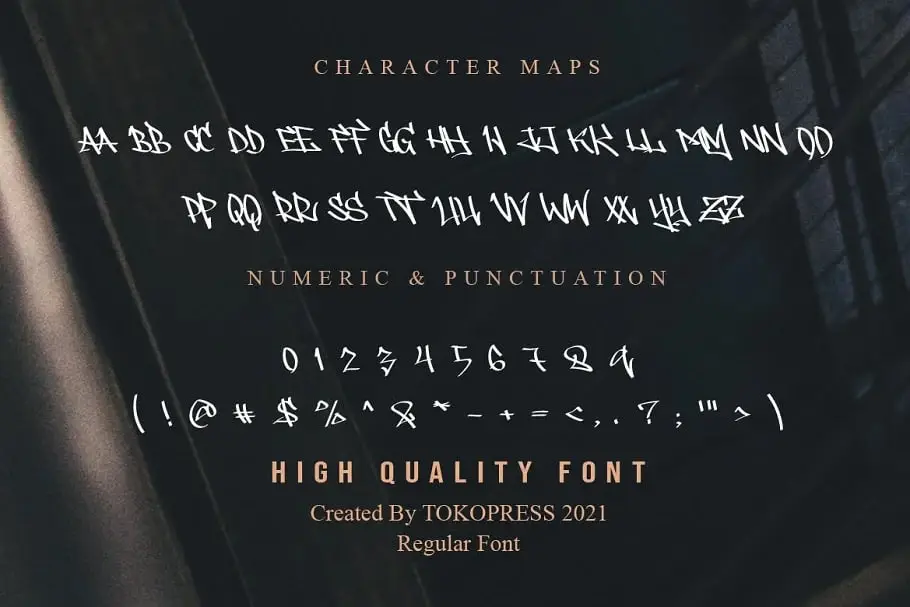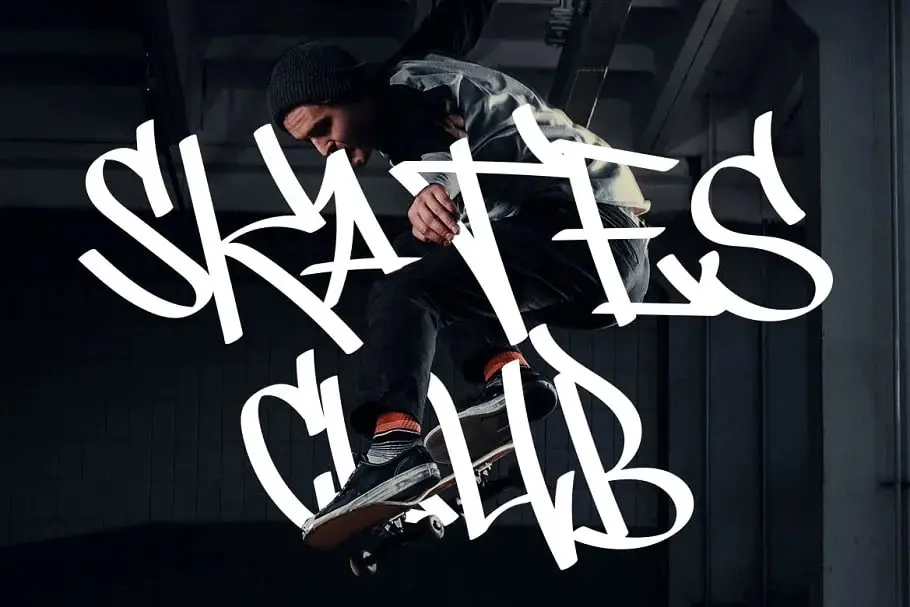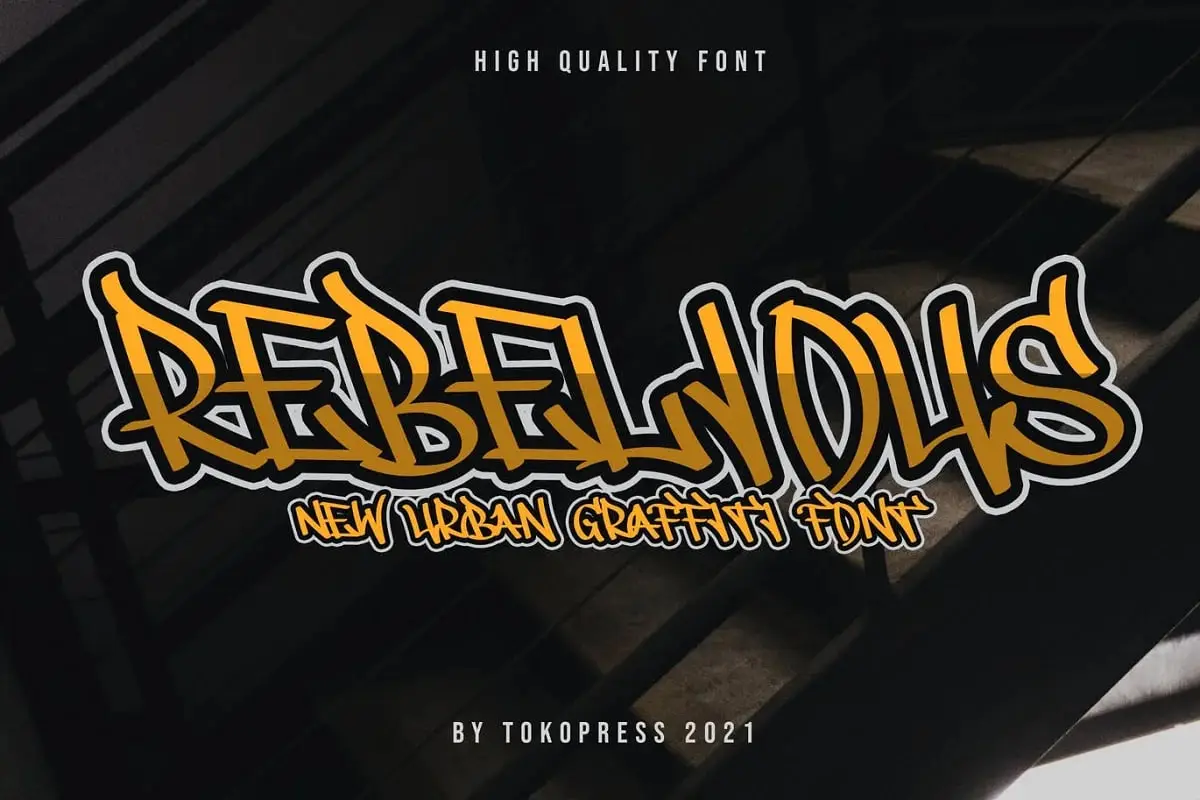
Rebelious-Powerful Graffiti Font
Introducing the Rebelious font, a powerful graffiti-style typeface that captures the essence of urban art. With its bold strokes and dynamic letterforms, this font is perfect for projects that require a touch of rebellious spirit.
• Unique graffiti style
• Accessible special characters
This font is ideal for branding, logos, posters, and any creative project that aims to make a statement. Use it to add an edgy feel to your designs.